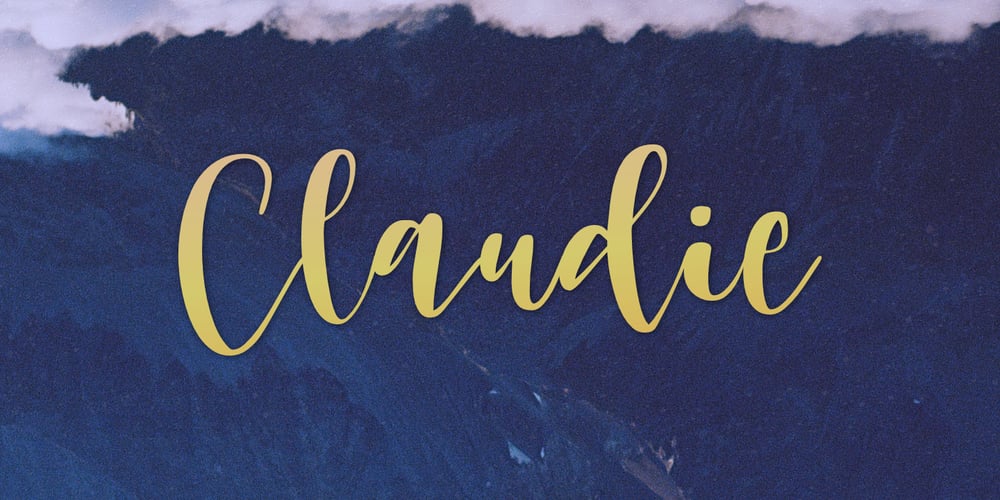
Claudie Font Family was designed by Aldy Sidik and published by Epiclinez. Claudie contains 1 styles and family package options. Claudie is a stylish script font suitable for wedding invitations, logotype, and product branding. Fall in love with its authentic and romantic feel, and use it to create outstanding designs!So what’s included : Basic Latin Uppercase and Lowercase Numbers, symbols, and punctuations Ligatures Multilingual Support. Accented Characters : ÀÁÂÃÄÅÆÇÈÉÊËÌÍÎÏÑÒÓÔÕÖØŒŠÙÚÛÜŸÝŽàáâãäåæçèéêëìíîïñòóôõöøœšùúûüýÿžß PUA Encoded and fully accessible without additional design software Simple Installations works on PC & Mac Thank You!